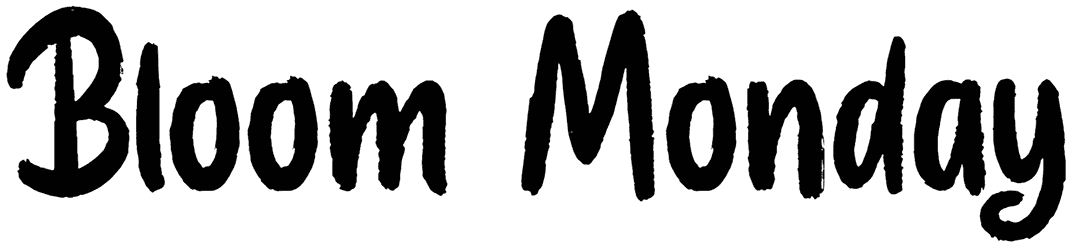
Bloom Monday Font
Bloom Monday is a great font to use if you want to add an informal and edgy touch to your creations. This fancy, handwritten font has a unique look that gives any project more personality. Bloom Monday is a great font for making your work stand out, whether you’re developing a billboard, a book cover, or a logo.